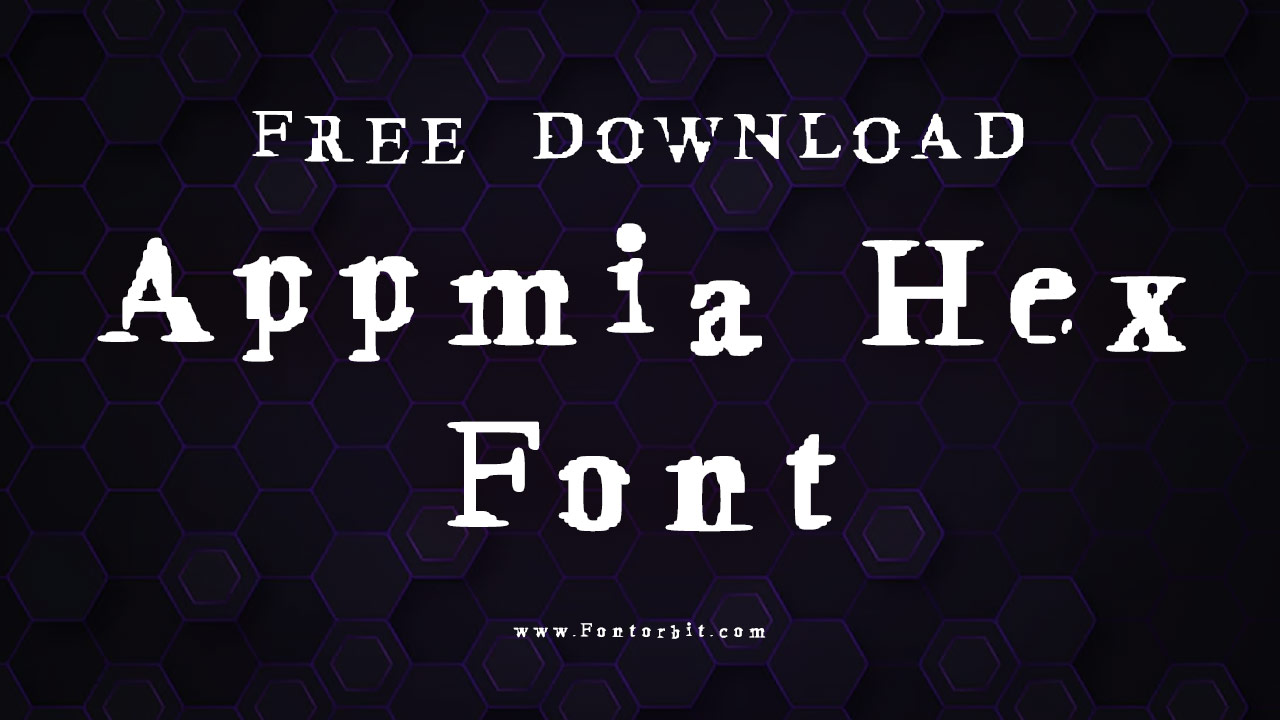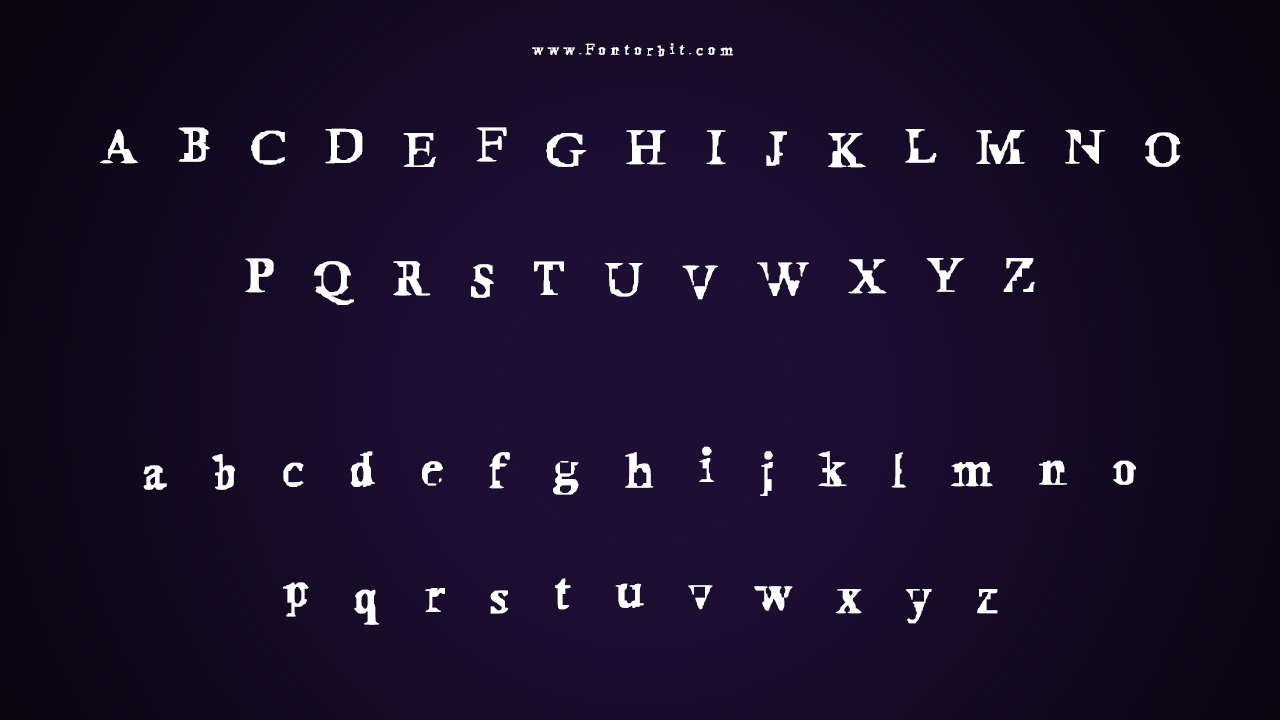
Appmia HEX Font is a unique typeface created specifically to add a touch of magic and individuality to mobile apps. Designed by Appmia company, this font aims to enhance the visual appeal of applications. And this makes them stand out with their distinctive style.
Type Of The Appmia HEX Font (Font Family)
Appmia HEX Font falls into the category of decorative typefaces, known for its unique design and flexibility. The family includes:
Appmia HEX Regular
The Appmia HEX Font In Use
- Mobile app designs
- Social media posts
- Website headers
- Branding materials
- Creative advertisements
Appmia HEX Font is a decorative typeface designed for those seeking unique and attention-grabbing designs. With its flexibility and a plethora of alternate characters, it’s ideal for a range of creative projects, from mobile apps to promotional materials. Get creative and explore the possibilities with Appmia Font!
1.What Are The Characteristics Of Appmia Font?
Appmia Font features a unique decorative style with a large number of alternate characters, allowing for versatile and creative design options.
2.What Are The Considerations For Using Appmia Font In Branding?
Ensure the font aligns with your brand’s playful and unique aesthetic. Appmia Font is ideal for brands looking to stand out with a creative touch.
3.What Are The Limitations Of Using Appmia Font In Design?
The font’s decorative nature may not suit more formal or traditional branding efforts where clarity and simplicity are paramount.
4.What Sets Appmia Font Apart From Other Decorative Fonts?
Its extensive range of alternate characters and emphasis on creativity make Appmia Font a standout choice for unique designs.
5.How To Create Unique Designs With Appmia Font?
Utilize its alternate characters and online character generator tool to transform standard text into fashionable and eye-catching designs.
6.What Styles Are Popular In Appmia Fonts?
Decorative, playful, and unique styles are popular, providing creative solutions for a wide range of design applications.